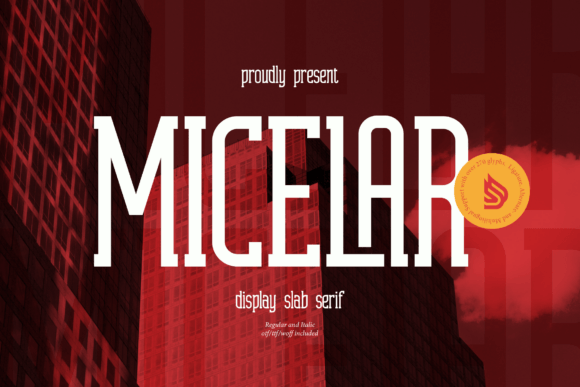
Micelar Font: A Bold and Modern Display Slab Serif
In the world of typography, fonts play a crucial role in conveying messages, expressing emotions, and creating visual identities. Among the numerous font styles available, Micelar stands out as a unique and attention-grabbing display slab serif font. Designed to make a statement, Micelar is perfect for titles, big text, posters, banners, and any other design that requires a bold and modern look.
What is Micelar Font?
Micelar is a type of font called a display slab serif. This means it has thick, blocky letters with small lines or “serifs” at the ends of each stroke. The serifs are a distinctive feature of serif fonts, and in the case of Micelar, they add a touch of elegance and sophistication to the overall design.
The term “slab serif” refers to the font’s thick, rectangular serifs, which give Micelar its characteristic bold and sturdy appearance. This font style is ideal for designs that require a strong visual impact, such as headlines, titles, and promotional materials.
Characteristics of Micelar Font
Micelar font has several key characteristics that make it a popular choice for designers:
- Bold and modern look: Micelar has a distinctive bold and modern appearance that makes it perfect for eye-catching designs.
- Thick, blocky letters: The font features thick, blocky letters that give it a sturdy and robust appearance.
- Small lines or serifs: The small lines or serifs at the ends of each stroke add a touch of elegance and sophistication to the font.
- Easy to read from a distance: Micelar is designed to be easy to read from a distance, making it perfect for large text, posters, and banners.
Uses of Micelar Font
Micelar font is versatile and can be used in various design projects, including:
- Posters and banners: Micelar is perfect for creating eye-catching posters and banners that require a bold and modern look.
- Headlines and titles: The font is ideal for headlines and titles that require a strong visual impact.
- Logos and branding: Micelar can be used to create unique and memorable logos and branding materials.
- Advertising and marketing materials: The font is suitable for advertising and marketing materials, such as flyers, brochures, and business cards.
Benefits of Using Micelar Font
Using Micelar font offers several benefits, including:
- Attention-grabbing: Micelar is designed to grab attention and make a statement.
- Easy to read: The font is easy to read, even from a distance, making it perfect for large text and posters.
- Versatile: Micelar can be used in various design projects, from posters and banners to logos and branding materials.
- Modern and bold look: The font has a distinctive modern and bold look that makes it perfect for designs that require a strong visual impact.
Tips for Using Micelar Font
To get the most out of Micelar font, follow these tips:
- Use it sparingly: Micelar is a bold font, so use it sparingly to avoid overwhelming the design.
- Pair it with a complementary font: Pair Micelar with a complementary font to create visual interest and hierarchy.
- Adjust the font size: Adjust the font size to ensure that Micelar is easy to read and visually appealing.
- Experiment with colors: Experiment with different colors to find the perfect combination that works with your design.
In conclusion, Micelar font is a bold and modern display slab serif font that is perfect for designs that require a strong visual impact. Its thick, blocky letters and small lines or serifs make it easy to read and visually appealing. With its versatility and attention-grabbing design, Micelar is a popular choice among designers. By following the tips outlined above, you can get the most out of Micelar font and create stunning designs that make a statement.